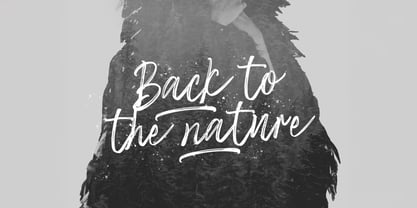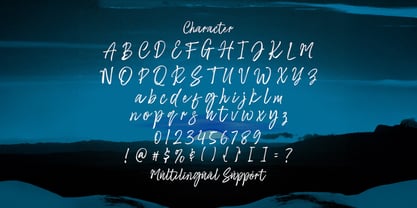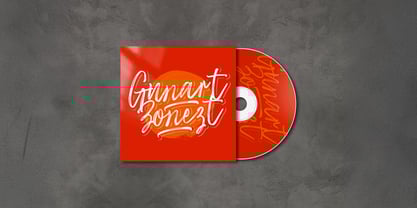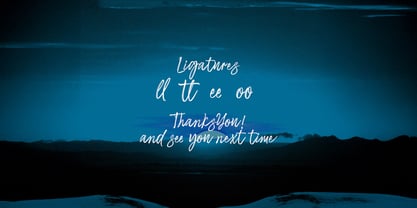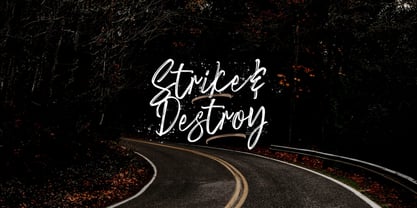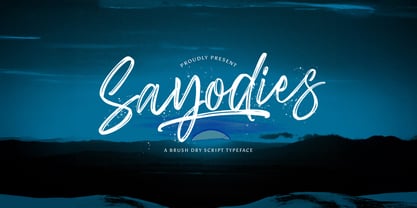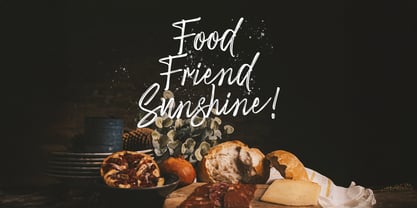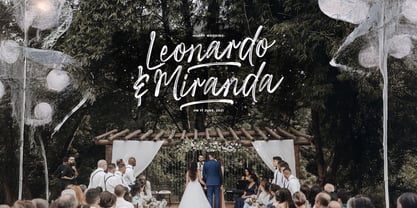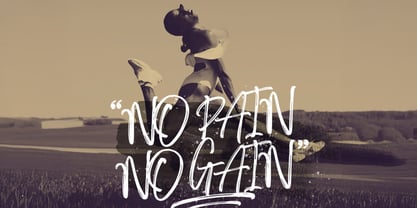
The Sayodies Font Family was designed by Virgiawan Listanto and published by Stringlabs Creative Studio. Sayodies contains 1 styles. More about this family
Sayodies is a stylish and energetic handwritten font that brings the charm of brush lettering to your designs. With its bold strokes and natural flow, this font adds a personal and artistic touch to any project.
Sayodies